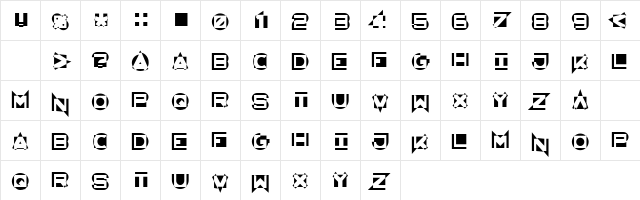
AntiMatter KG xrG# Gx
Design Context for AntiMatter KG
AntiMatter KG is a composed and adaptable typeface that performs quietly and consistently across a wide range of design contexts.